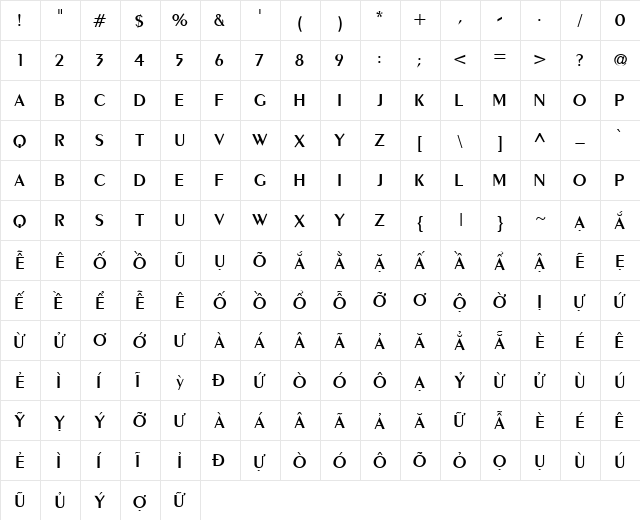
VI Co May Hoa Normal
Design Context for VI Co May Hoa Typeface
VI Co May Hoa takes a measured approach to typography — its balanced proportions and neutral character make it a reliable workhorse for both digital and print work.
Pro Tip: Use VI Co May Hoa in both headline and body roles to test its range before committing to a single application.